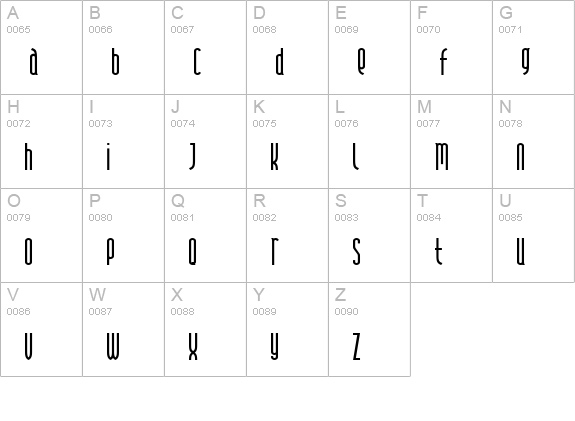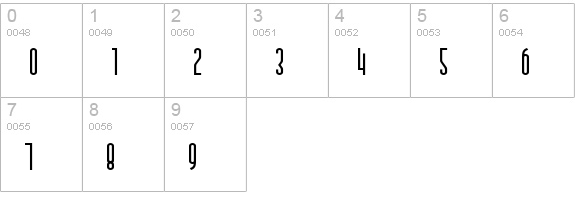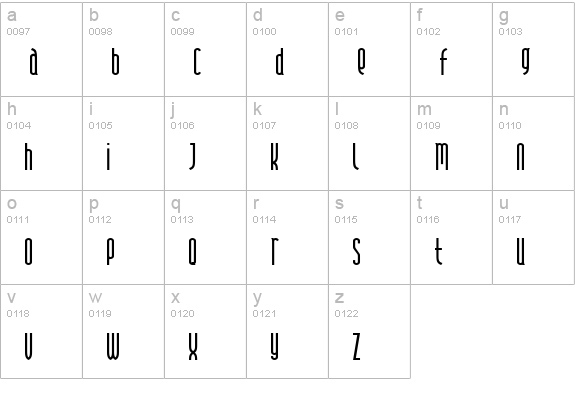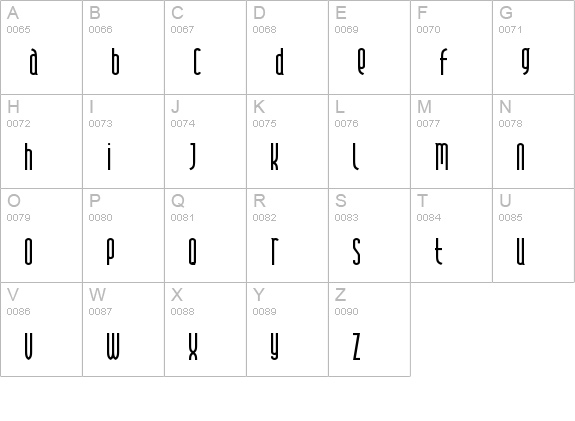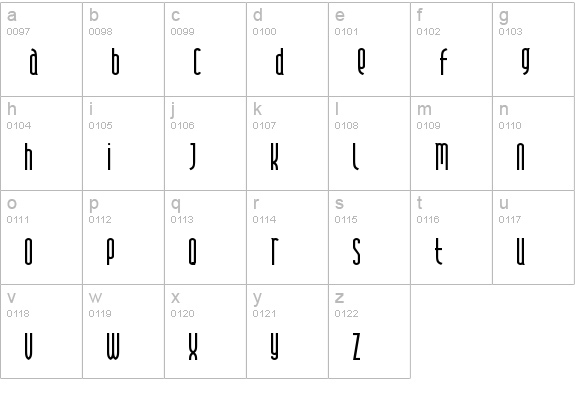
Andover Font Details
Andover font is a modern and elegant typeface that exudes sophistication and style. With its clean lines and versatile design, this font is perfect for a wide range of projects, from branding to editorial design. Andover font features a unique blend of classic and contemporary elements, making it a timeless choice for any creative endeavor. The best part? Andover font is free to download at FontsMarket.com! Now you can add this beautiful font to your collection without breaking the bank. Whether you're working on a personal project or a client's design, Andover font is sure to elevate your work and make a lasting impression. Download Andover font today and enhance your creative projects with this stunning typeface.